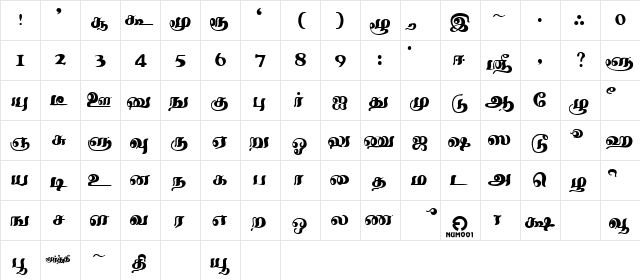
Mohanam_Vakeesan Regular
Design Context for Mohanam_Vakeesan Typeface
Mohanam_Vakeesan offers clean, dependable letterforms without strong stylistic allegiance, making it a practical choice for designers who need flexibility.